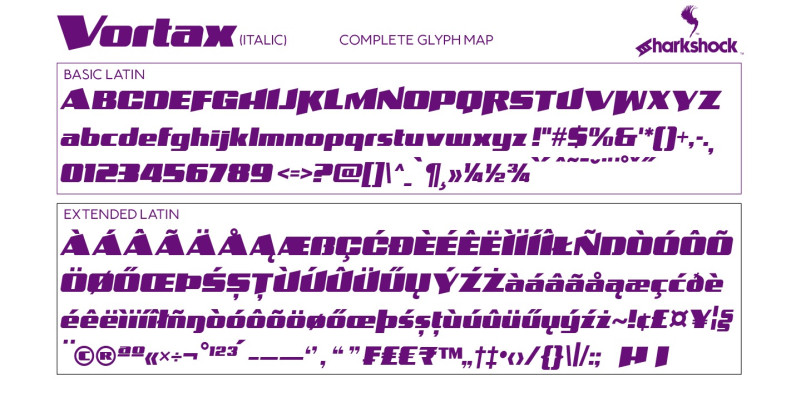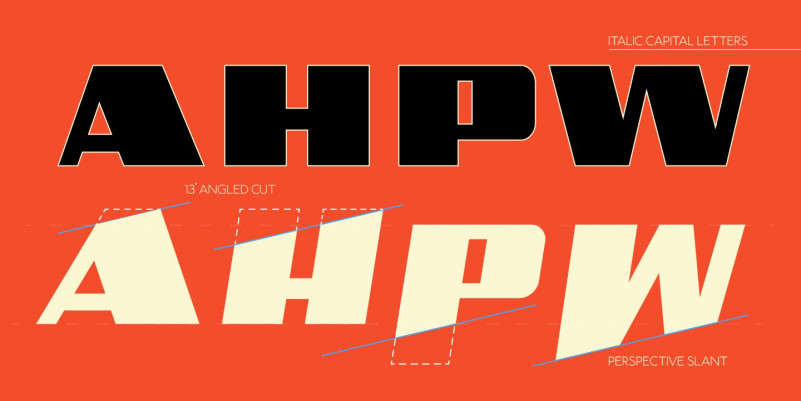
Vortax Font
Vortax Font is a space-age themed display sans featuring broad strokes and tight spacing. This close relative of Galaxus features imposing Capitals with some sharp slants in the Italic version. It’s designed to cover horizontal blocks effortlessly. Most characters have curves on the exterior with right angles on the interior. This dynamic contrast makes it a great choice for a video game/app, toy packaging, or sports logo. Vortax is equipped with European accents for international support. Please check glyph maps for all supported characters.